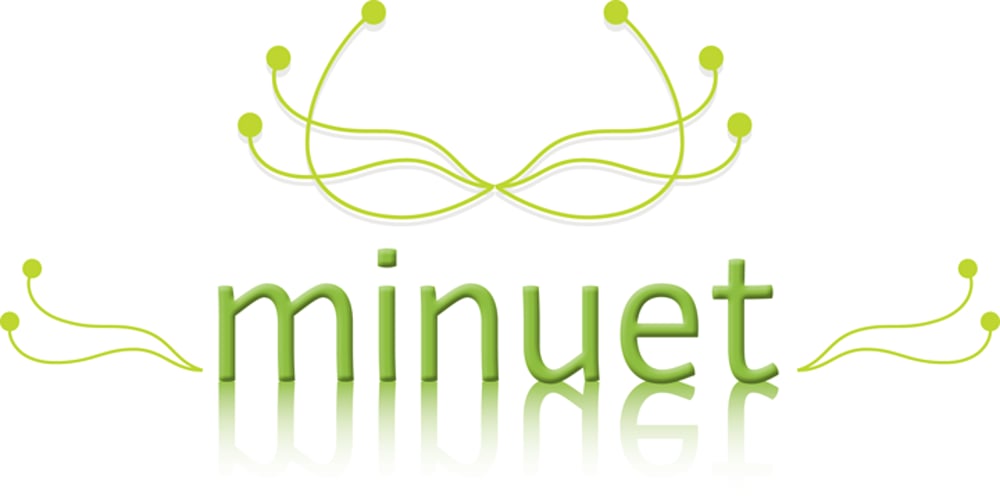
Michua Font Family was designed by Santiago Silva, Manuel Leonardo Méndez and published by Macrotipo. Michua contains 1 styles and family package options. Michua is a sans serif font based on the principles of freedom and spontaneity, designed with curved ends and sticks with a slight wave. Its development is aimed at both screen display and its use in print media. Thanks to the flexibility offered by OpenType features we included special characters such as ligatures and old style numbers, offering a fairly comprehensive set extension.